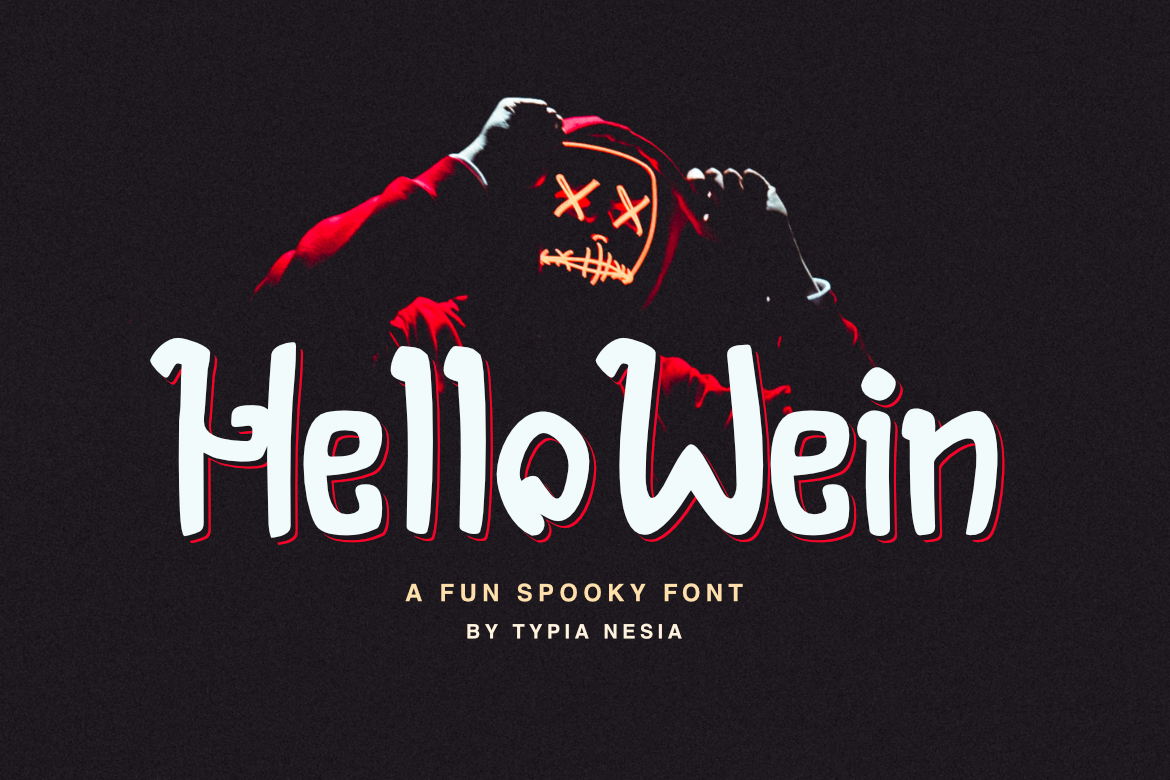
Hello Wein is a fun spooky font,
It suitable for branding, crafting quote, t-shirt, poster, packaging, book cover, display design, cards, invitation and any cute and funny typeface needs and more.